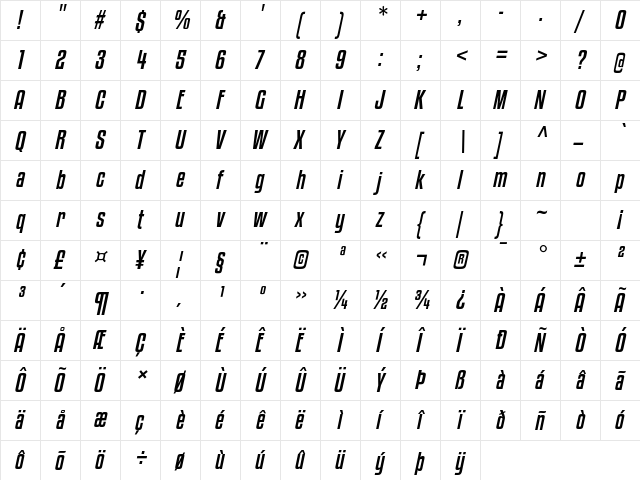
Kenyan Coffee Italic
Design Context for Kenyan Coffee Typeface
Kenyan Coffee takes a measured approach to typography — its balanced proportions and neutral character make it a reliable workhorse for both digital and print work. The dynamic lean of this cut emphasises speed and emphasis in any layout.
Pro Tip: Try Kenyan Coffee for annotation and caption copy alongside an upright companion — the contrast in angle creates a dynamic but ordered typographic system.